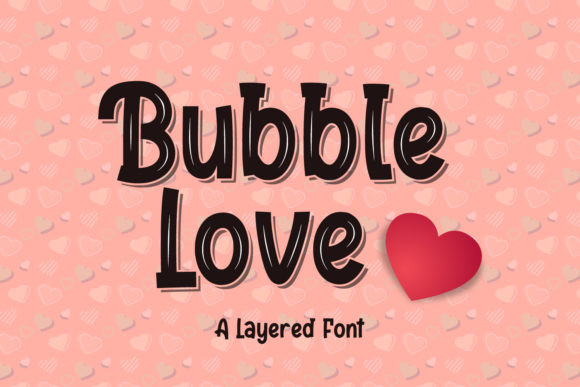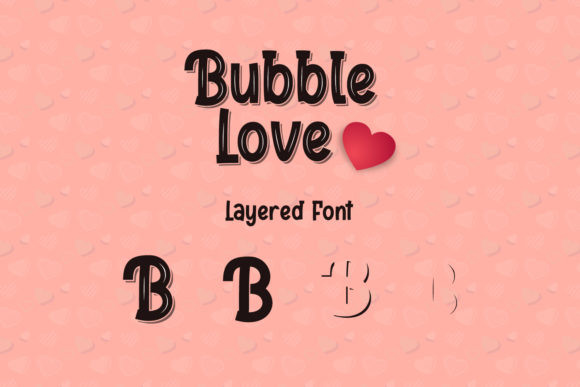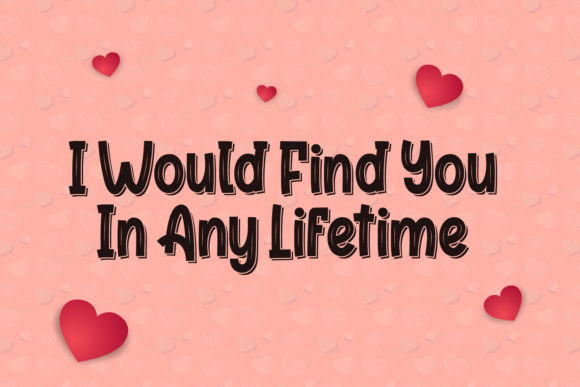
Bubble Love Font
Bubble Love is a display font with a playful, cute and clean style. Bubble Love is the perfect font for making original and outstanding designs.